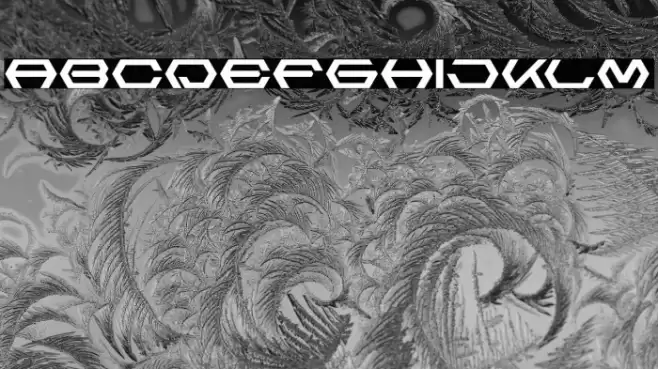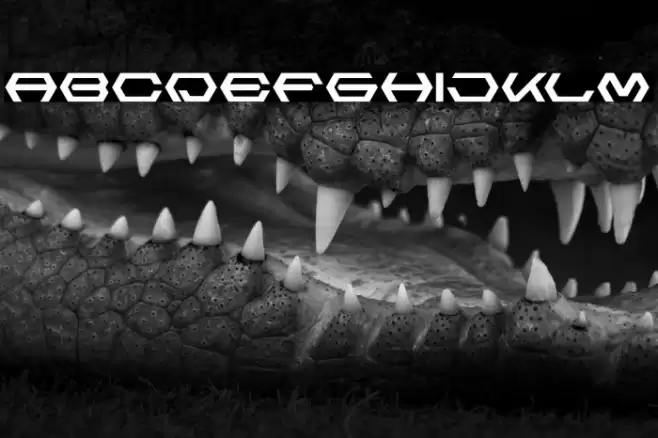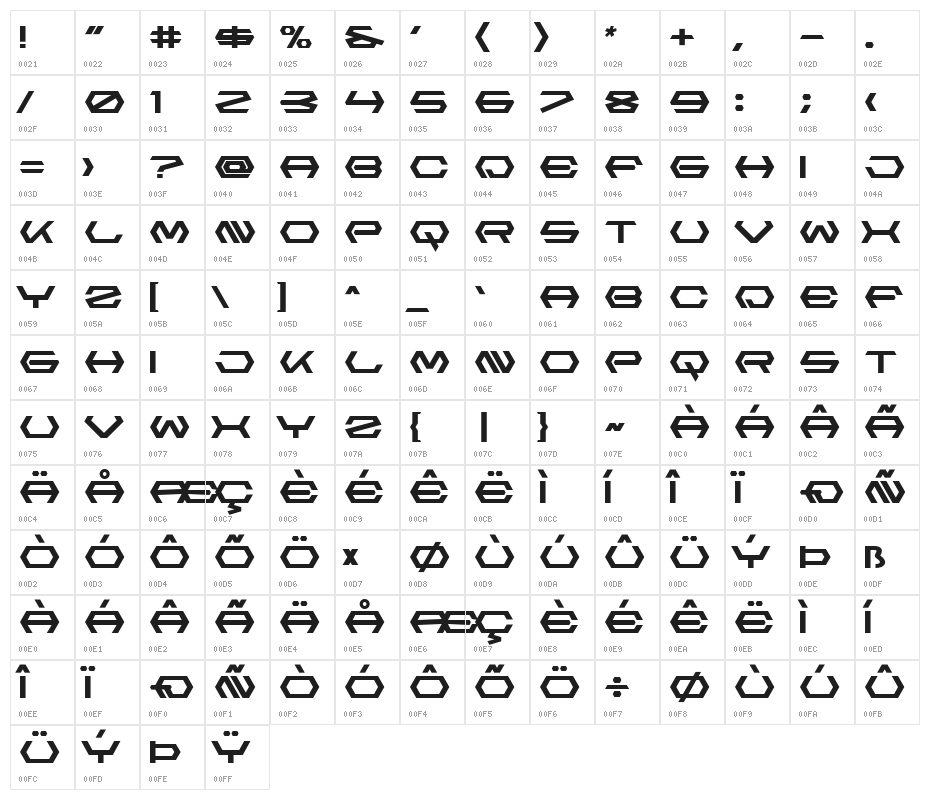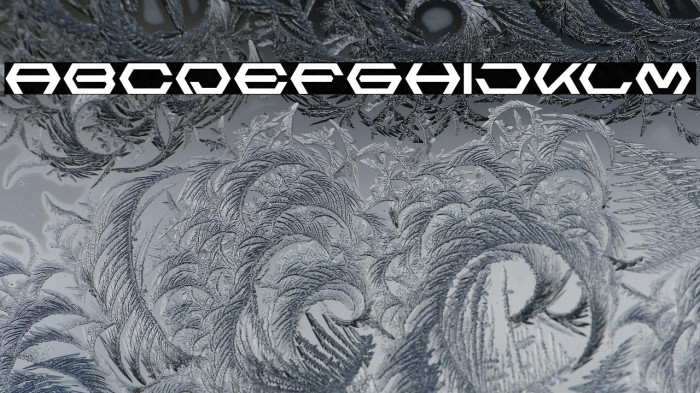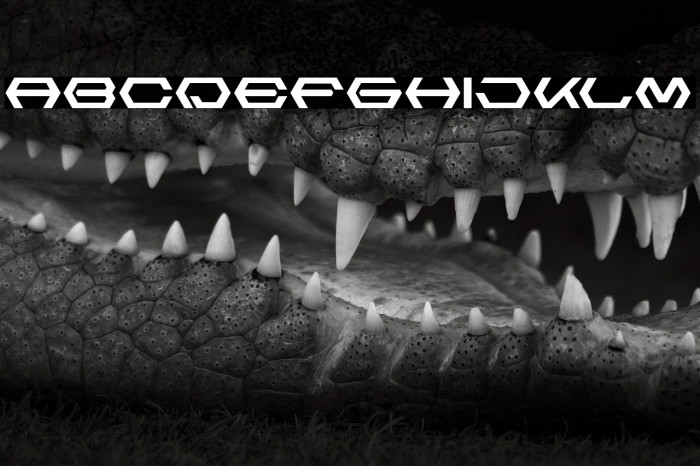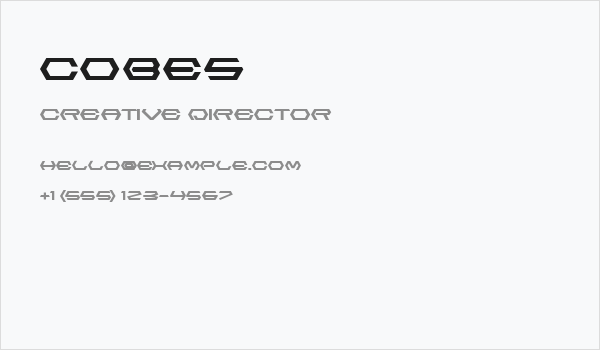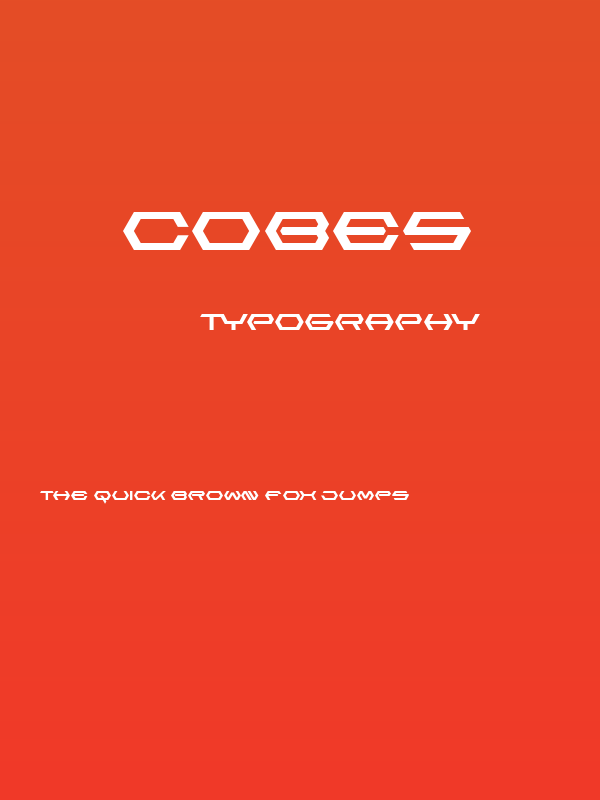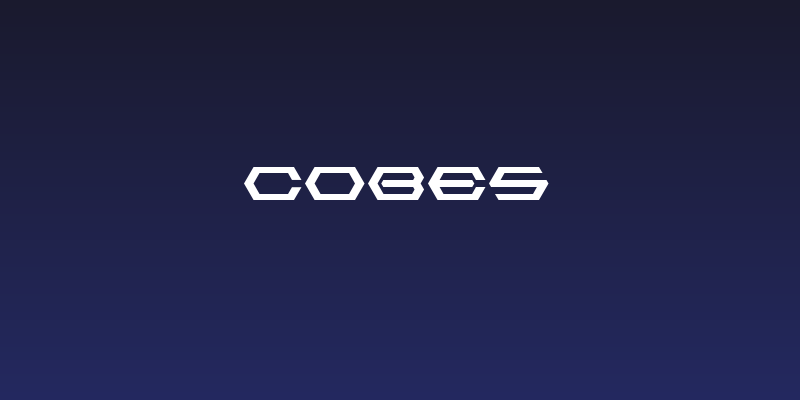
Cobes Font
Cobes Description
This font features a bold, geometric design with sharp angles and a futuristic aesthetic. The characters are constructed with thick lines and angular cuts, giving them a distinct, edgy appearance. The uppercase letters are uniform in height, while the numbers and special characters maintain the same bold style. The font's unique style makes it stand out, with a modern and somewhat industrial feel. It is well-suited for projects that require a strong visual impact, such as technology-related branding or sci-fi themed designs.
A bold, geometric font with a futuristic and edgy design from Uncategorized fonts.
- Proposed Projects: Ideal for technology branding, sci-fi themes, video game titles, and modern posters.
- Overall Style: Futuristic, Industrial